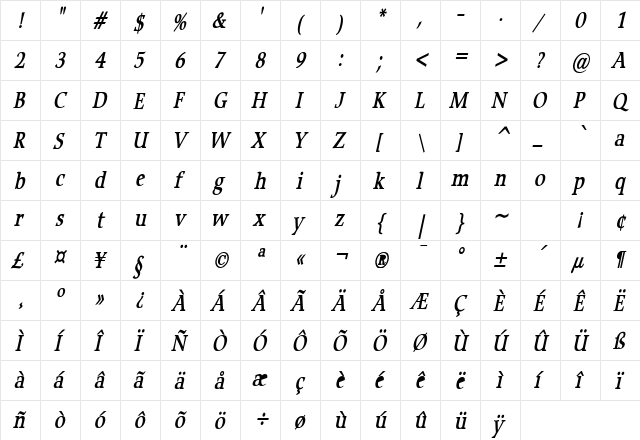
Carmine Condensed Bold Italic Font Preview
Design Context for Carmine Condensed Typeface
Carmine Condensed takes a measured approach to typography — its balanced proportions and neutral character make it a reliable workhorse for both digital and print work. Its italic angle brings a sense of urgency and motion to the letterforms. Its bold stroke weight gives it real presence on the page. Its narrow stance lets it pack a punch even in space-constrained designs.
Pro Tip: Try Carmine Condensed for annotation and caption copy alongside an upright companion — the contrast in angle creates a dynamic but ordered typographic system.